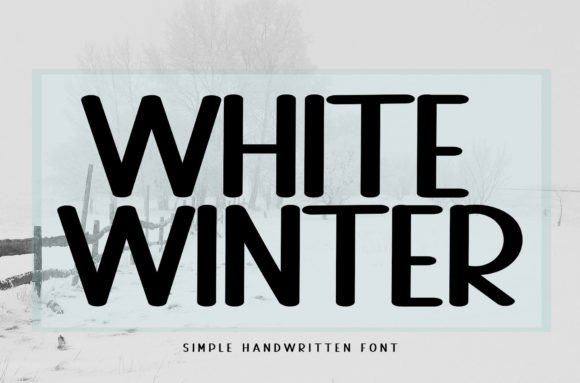
Experience the captivating allure of White Winter, an all-caps sans serif font crafted by Sansana. This playful and casual font is more than just a collection of letters; it's a gateway to unleashing your creativity and transforming your designs into captivating masterpieces.
With its clean lines and unassuming charm, White Winter is a versatile font that effortlessly complements a diverse range of design projects. Whether you're creating eye-catching card designs, crafting social media posts that pop, or designing logos that leave a lasting impression, White Winter is your perfect partner in creativity.
But White Winter is more than just a versatile font; it's an emotion weaver, a storyteller, a muse that ignites your imagination and sets your creativity ablaze. Its whimsical charm and playful nature add a touch of whimsy to your designs, evoking a sense of joy and wonder in the hearts of your audience.
Immerse yourself in the world of White Winter, where fonts come alive and your designs take on a life of their own. Unlock the endless possibilities that await you and watch as your projects bloom with creativity and originality.